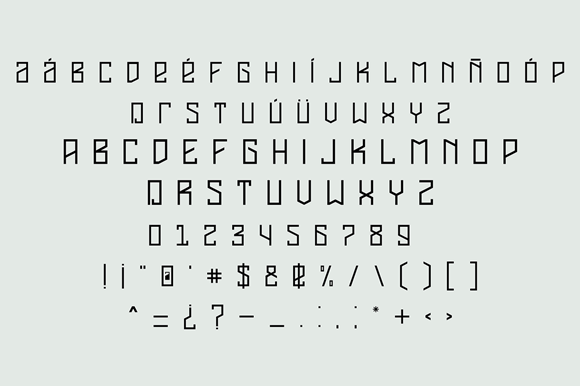
Discover the Bold and Modern Abser Font by Carlos Daniel Matteoli
In the world of typography, a new font has emerged that’s making waves among designers and crafters alike. Meet Abser, a striking sans serif font created by the talented Carlos Daniel Matteoli. With its clean lines, modern aesthetic, and versatility, Abser is quickly becoming a go-to choice for projects that demand a bold and contemporary look.
The Abser Font: A Brief Introduction
The Abser font is a sans serif typeface, characterized by its simple yet elegant design. The brainchild of Carlos Daniel Matteoli, Abser boasts a unique blend of geometric shapes and subtle curves, making it perfect for a wide range of applications, from branding and advertising to packaging and digital media.
Key Features of the Abser Font
So, what sets Abser apart from other fonts in the sans serif family? Here are some of its key features:
- Clean and Modern Design: Abser’s sleek lines and minimalist approach make it an excellent choice for projects that require a fresh and modern look.
- Geometric Shapes: The font’s geometric shapes give it a unique and distinctive feel, making it perfect for designs that require a touch of sophistication.
- Versatility: Abser is a highly versatile font, suitable for use in a variety of contexts, from headings and titles to body text and captions.
- Excellent Legibility: The font’s clear and concise design ensures excellent legibility, even at smaller font sizes.
| Font Name | Abser Font |
| Author | Qbotype Fonts |
In conclusion, the Abser font by Carlos Daniel Matteoli is a striking sans serif font that’s perfect for designers and crafters looking for a bold and modern aesthetic. With its clean lines, geometric shapes, and versatility, Abser is an excellent choice for a wide range of projects, from branding and advertising to packaging and digital media. Whether you’re a graphic designer, web designer, or crafter, Abser is definitely worth checking out.